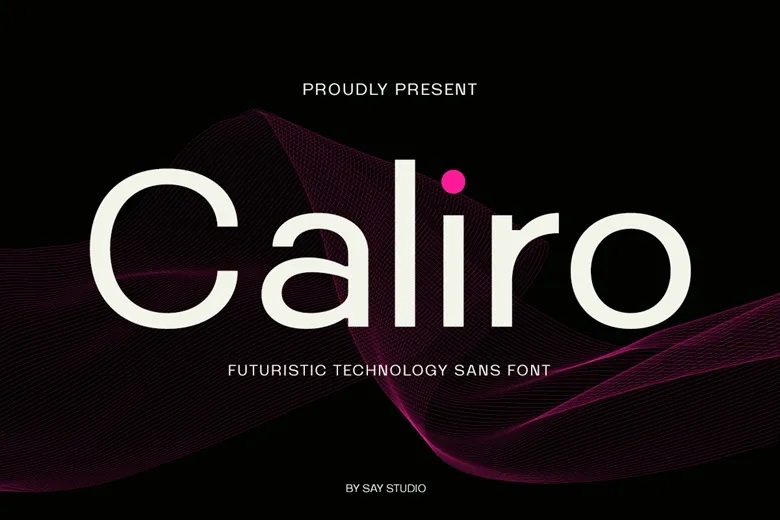
Calior Font
Caliro is a modern sans-serif font designed for today’s digital world. Its clean lines and precise shapes give it a sharp, minimal look that works well in UI/UX projects, startup branding, tech presentations, dashboards, mobile apps, and editorial.
Calior Sans Serif Font